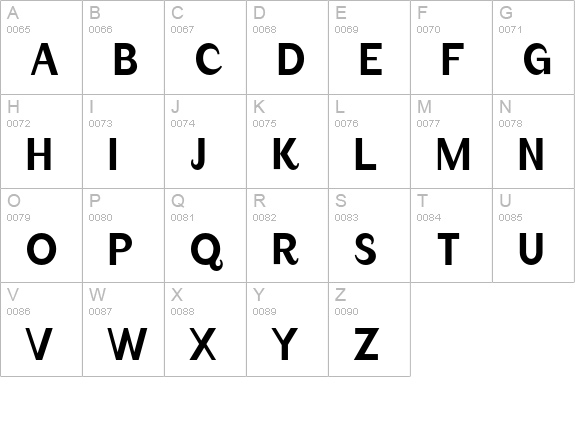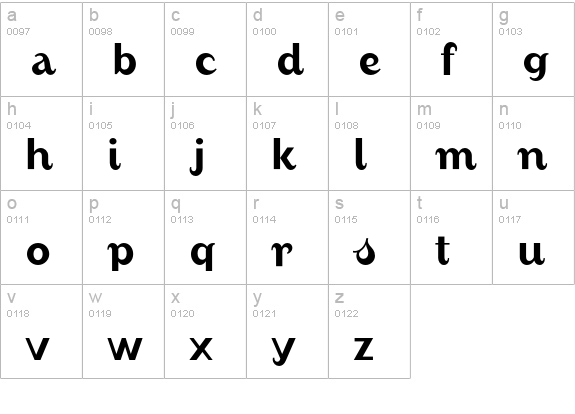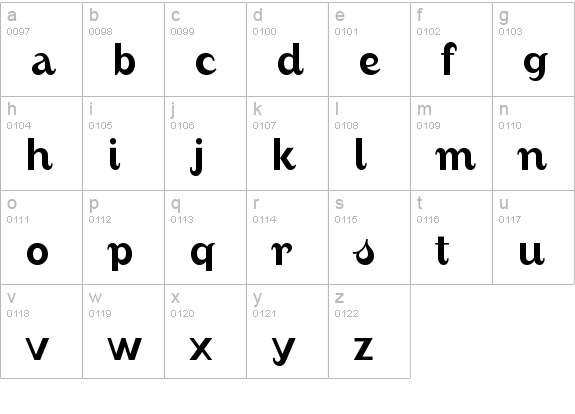
August-RegularAlternate font is a versatile and stylish typeface that exudes elegance and sophistication. With its unique alternate characters, this font adds a touch of creativity and individuality to any design project. The clean lines and balanced proportions make it perfect for a wide range of applications, from logos and branding to editorial design and web content. What sets August-RegularAlternate font apart is not only its aesthetic appeal but also its accessibility. This font is available for free download at FontsMarket.com, making it easy for designers and creatives to incorporate this beautiful typeface into their work without any cost. Whether you're looking to elevate your typography game or simply add a fresh twist to your projects, August-RegularAlternate font is a fantastic choice that won't break the bank.